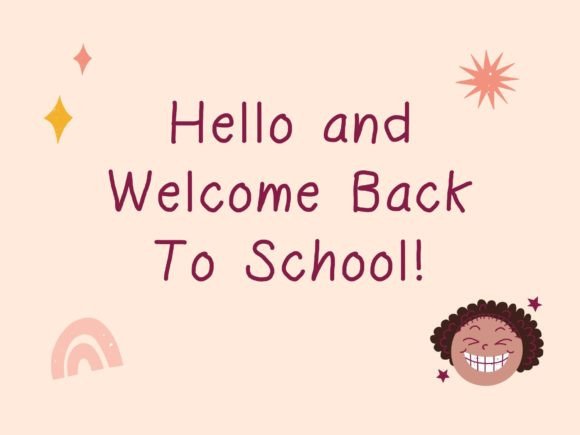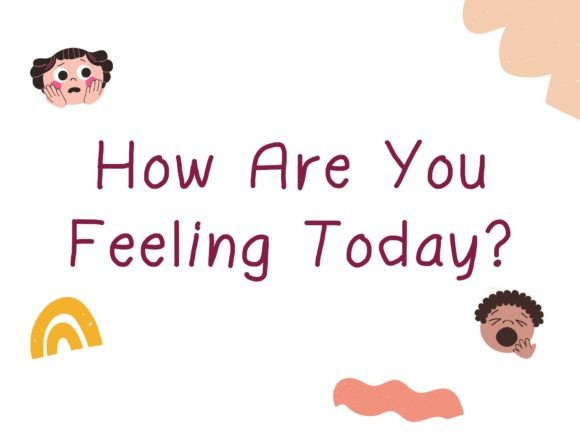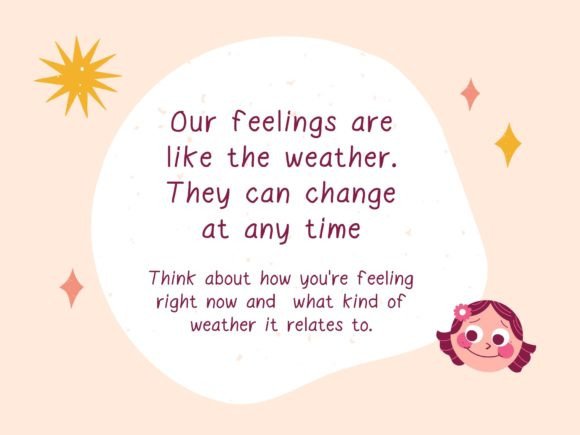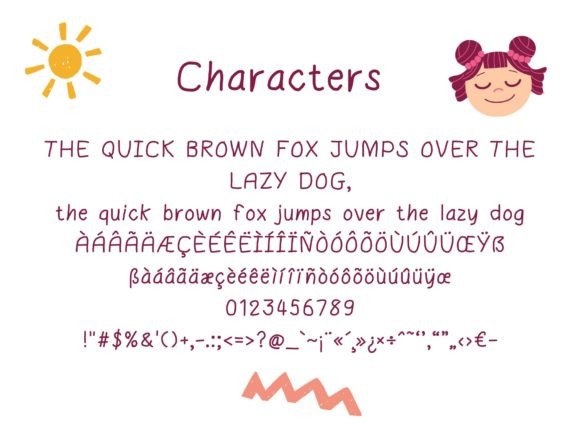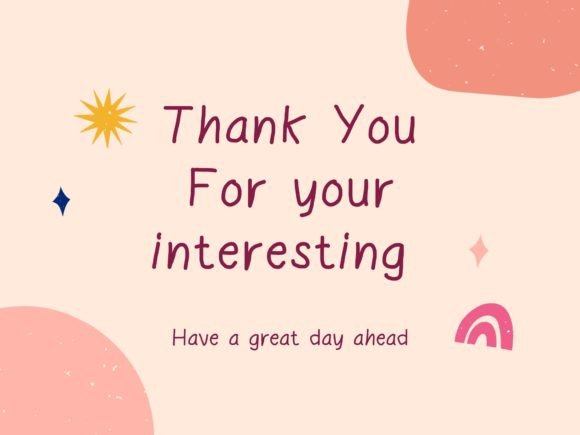
Introduction to Like-a-child Font
“Like-A-Child” is a whimsical digital font that captures the spirit and innocence of a child’s first handwriting attempts.
With its playful irregularities and uneven lines, this font brings a joyful, creative energy to any project Each character is delightfully unrefined and uniquely charming, evoking the carefree drawings and writings of a young learner.